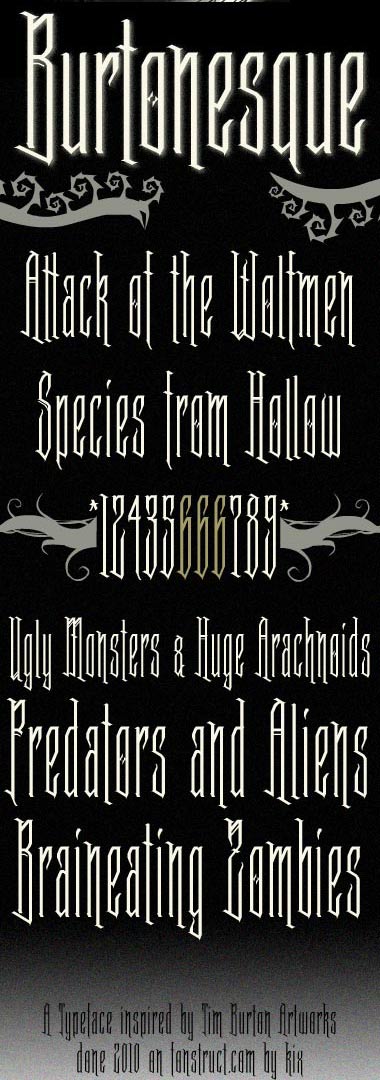
Really impressive
Cool work kix. I think it lives up to its name quite well.
Tall and slender Gothic letters. I like you've taken care of the small details. Your excellent demo picture enhances the creepy-freaky, sinister atmosphere. 10/10
I seems it was made by nails scratching a wooden door. Brrr, I'm shivering as I am writing this...
Schweet.
quite effective and bizarre.
great, really carries the style of Buton
10/10 + fav =]
Very well executed. Pun intended.
Absolutely beautiful, delicate and otherworldly ... a bit like Helena Bonham Carter :)
Astounding! I love the whole aesthetic. What a great homage. One tiny nitpick with the sample, if possible could you remove the (I'm guessing) copy protected illustration at the top. I think the sample works without it anyway.
I think the same thing happens to many people, I am crazy about Tim Burton. This calligraphy, elegant and fine, reminds me of everything that surrounds the disturbing world of Burton just to see her. Great job. A whole 10.
Very Nice!
wedding/congratulation card?
Let me guess someone from the Addams Family was getting married, right?
Pretty freaking amazing... This spidery irregularity, the awesome terminals and the small decorative details make this look so burtonesque that I actually I think it would have done a better job on the "The Nightmare Before Christmas" poster than the font they used. (And I have that poster in my living room, which means the font must already be good for me to tolerate it.:P).
Great numerals too...
Alle in allem ist das wohl mein Favourite unter deinen bisherigen Werken... Und das will was heissen. :)
Awesome. JACK SKELLINGTON
Yes, it is Burtonesque:)